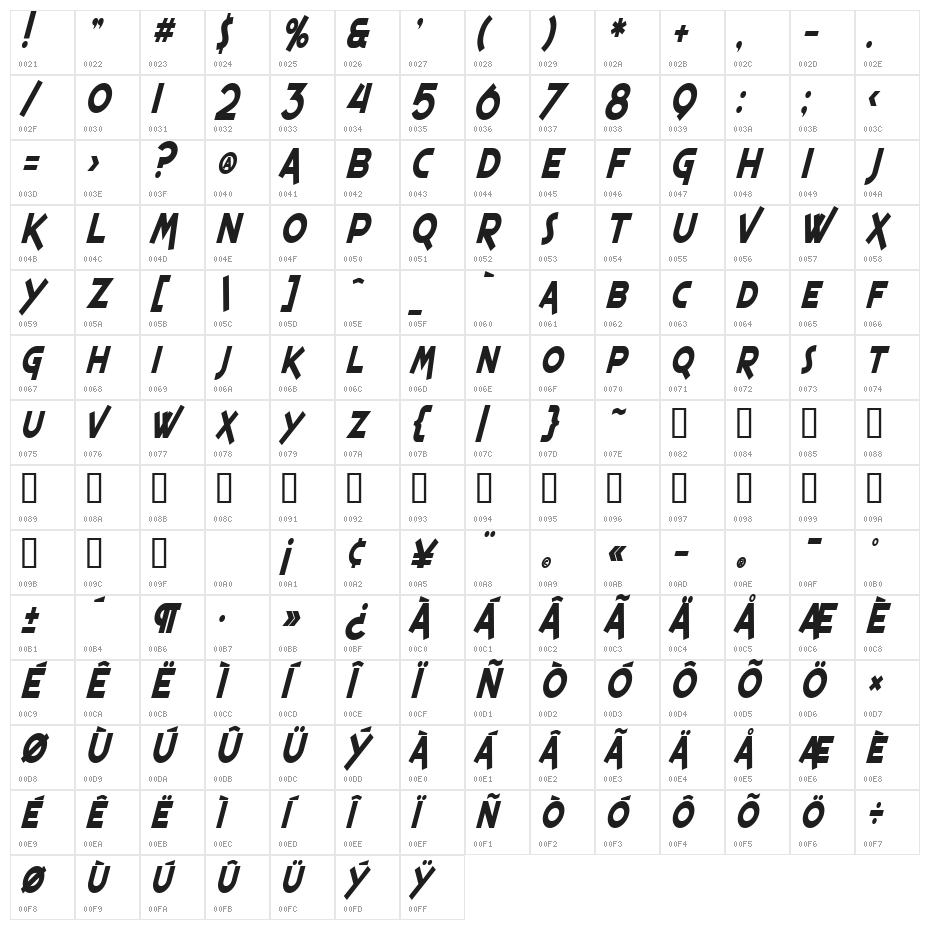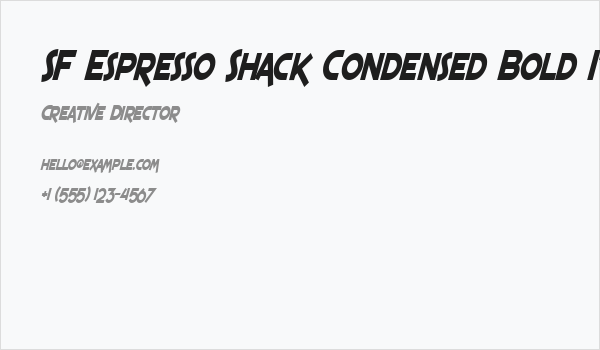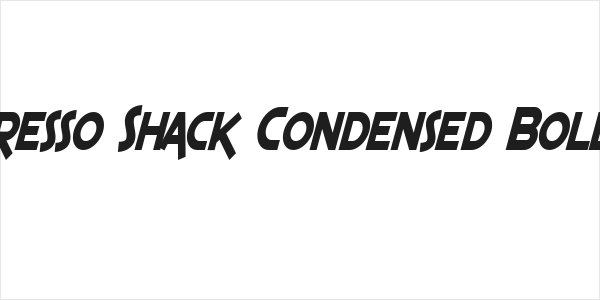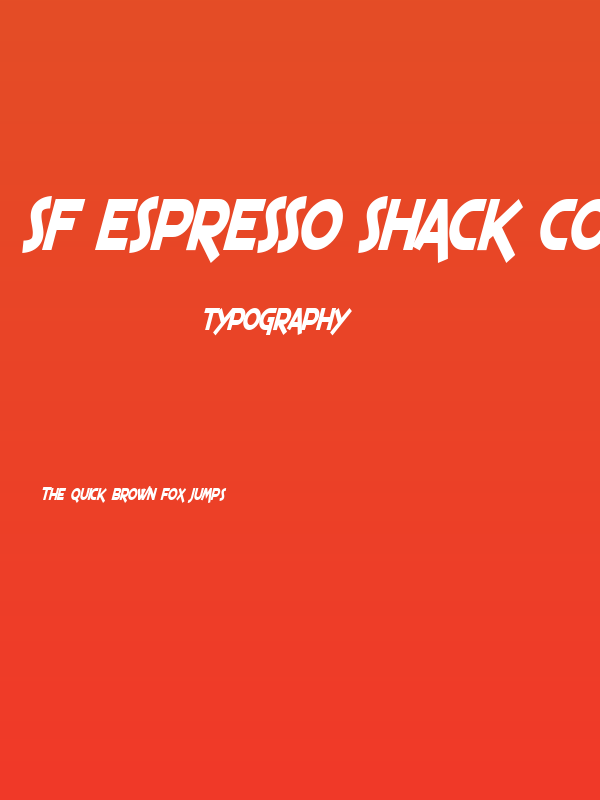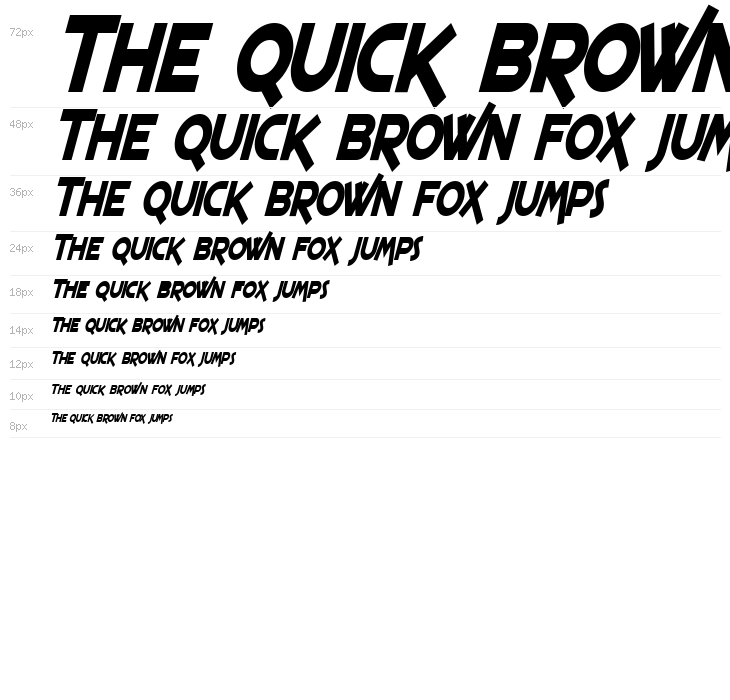
SF Espresso Shack Condensed Bold Italic Font
SF Espresso Shack Condensed Bold Italic Description
This font features a bold and dynamic style with a condensed width and italic slant, giving it a sense of movement and energy. The characters are robust and impactful, making them suitable for attention-grabbing headlines. The angular design and sharp edges contribute to a modern and edgy appearance. The numerals and special characters maintain the same boldness and slant, ensuring consistency across all glyphs. This font's strong presence makes it ideal for projects that require a bold statement.
| Proposed Projects | Ideal for sports branding, dynamic posters, modern advertisements, and any project needing a bold, energetic typeface. |